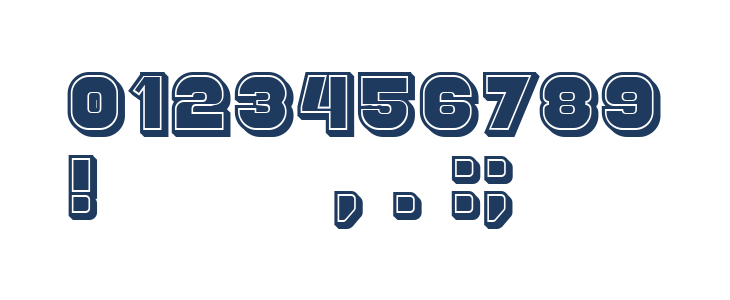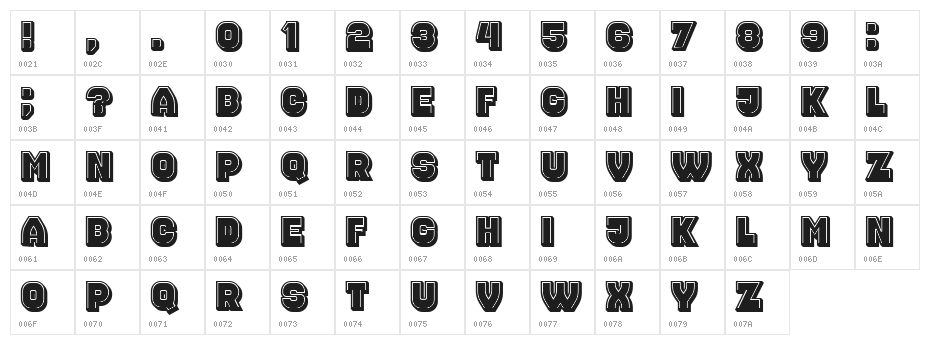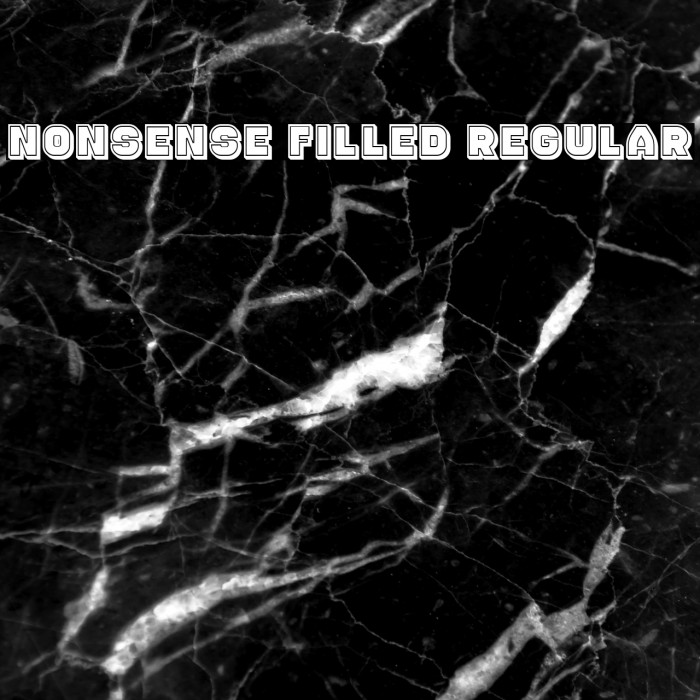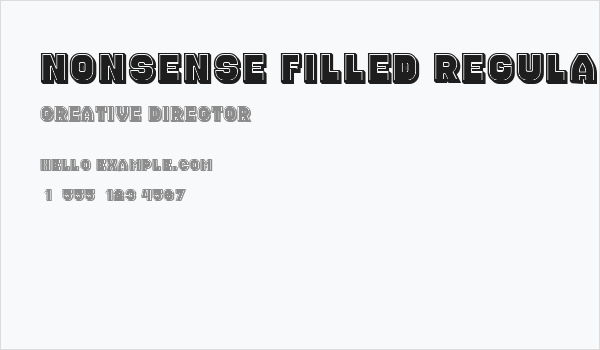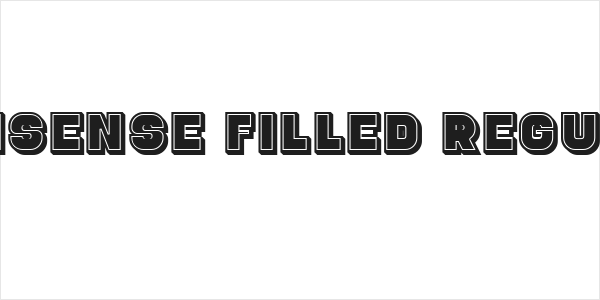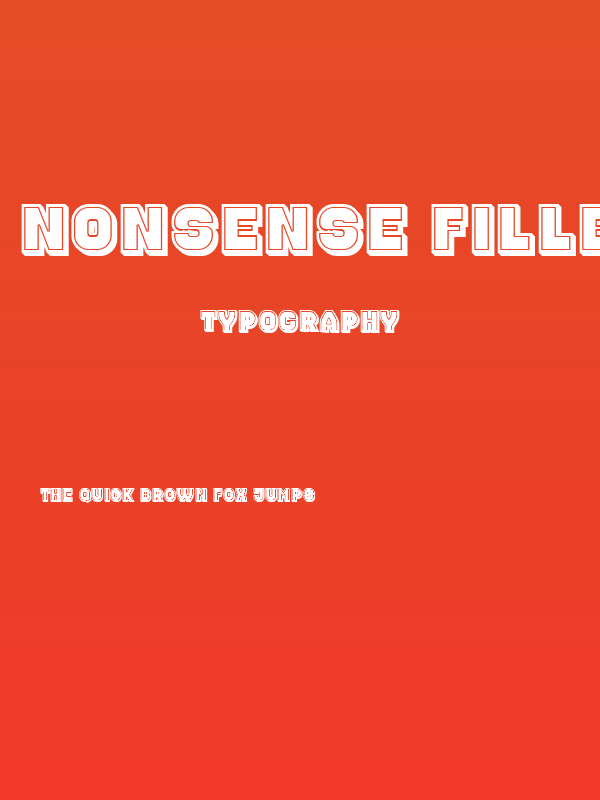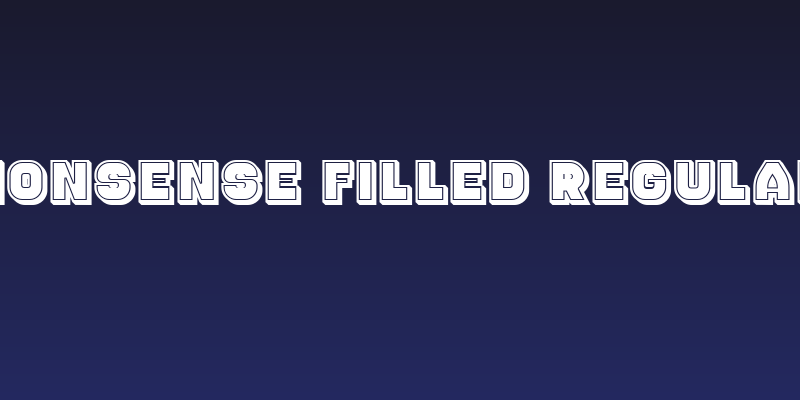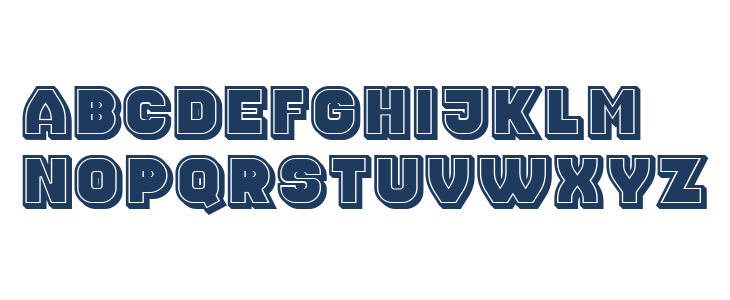
Nonsense Filled Regular Font
Nonsense Filled Regular Description
This font features bold, geometric letterforms with a strong, three-dimensional appearance. The characters are outlined with a thick black border, creating a striking contrast against the white interior. The design is consistent across uppercase letters, numbers, and special characters, maintaining a cohesive look. The font's structure is blocky and robust, with sharp angles and clean lines that give it a modern and industrial feel. The spacing between characters is tight, enhancing the compact and solid nature of the typeface. This style is ideal for making a bold statement in any design project.
| Proposed Projects | Ideal for posters, logos, headlines, and any design requiring a strong visual impact. |